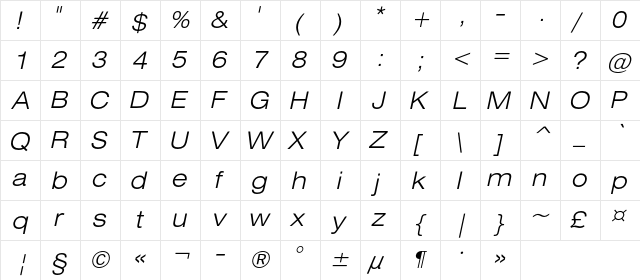
HeliosExtLightC Italic Font Preview
Design Context for HeliosExtLightC Typeface
HeliosExtLightC takes a measured approach to typography — its balanced proportions and neutral character make it a reliable workhorse for both digital and print work. The slanted form adds forward momentum and visual energy. Its slender proportions lend an understated elegance to any composition.
Pro Tip: Try HeliosExtLightC for annotation and caption copy alongside an upright companion — the contrast in angle creates a dynamic but ordered typographic system.